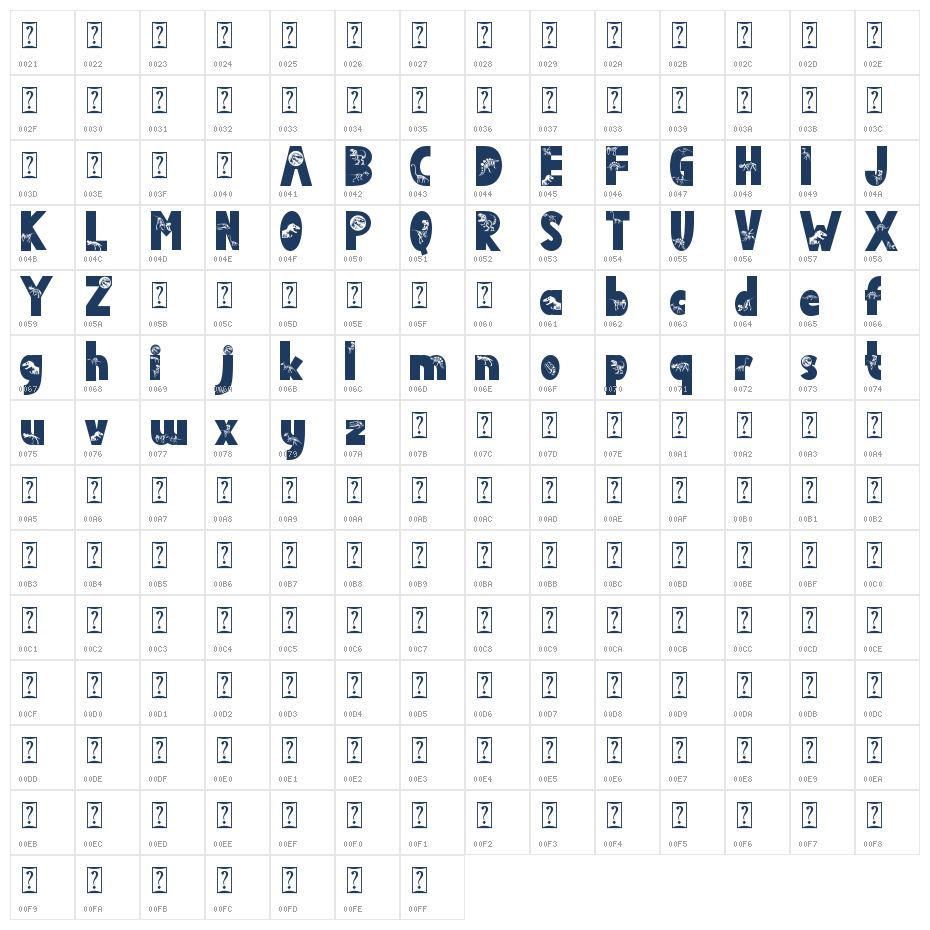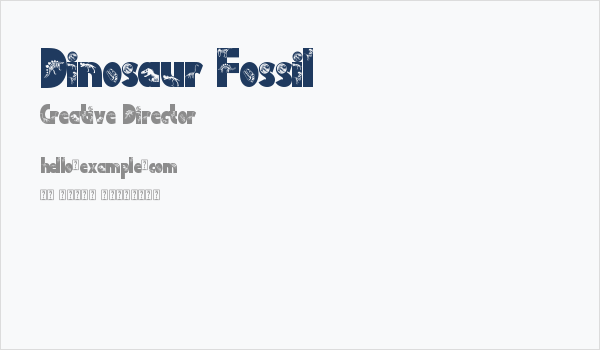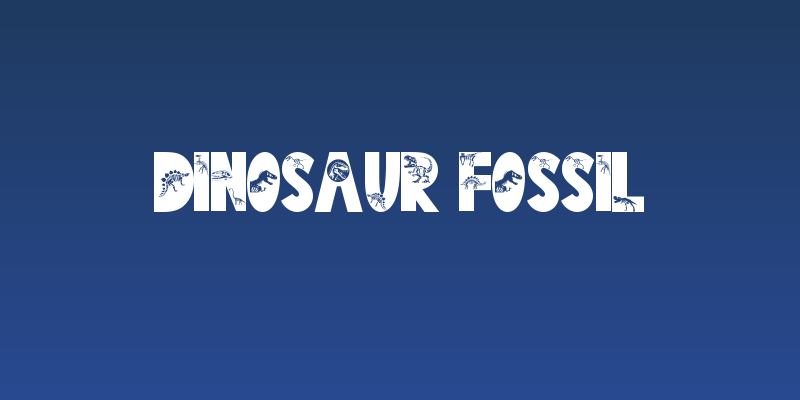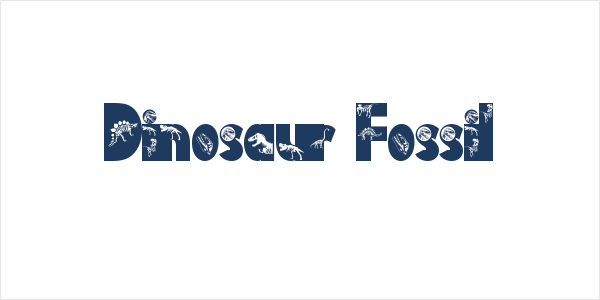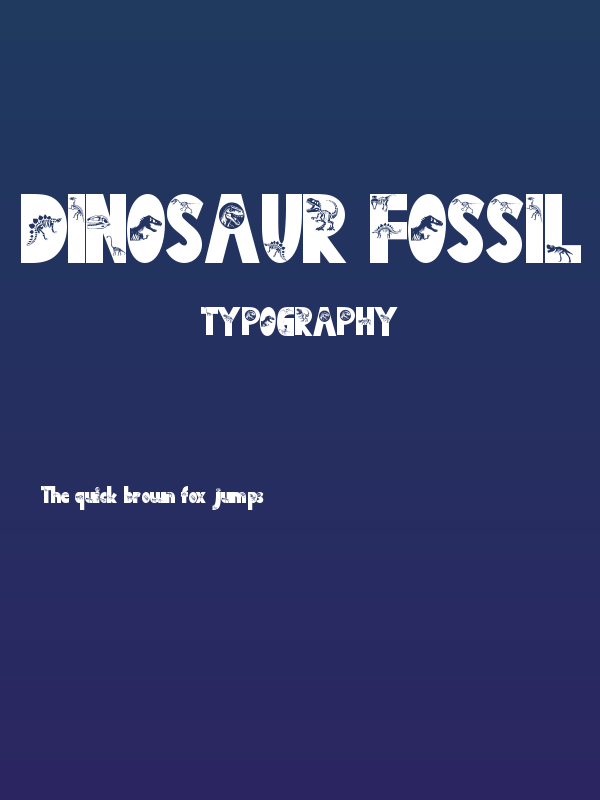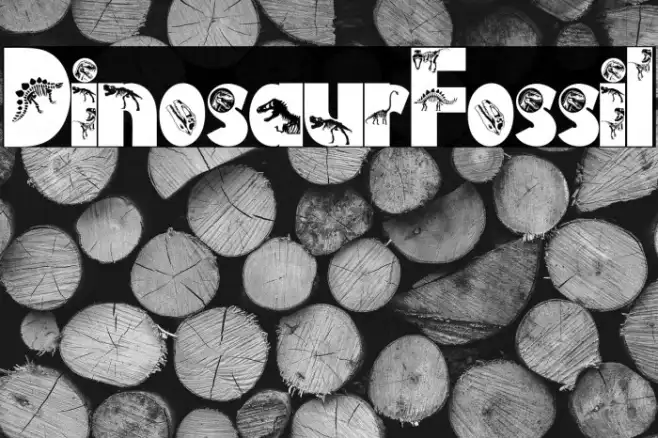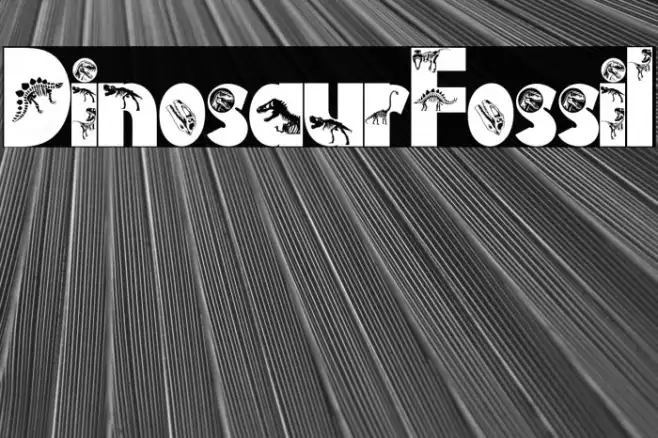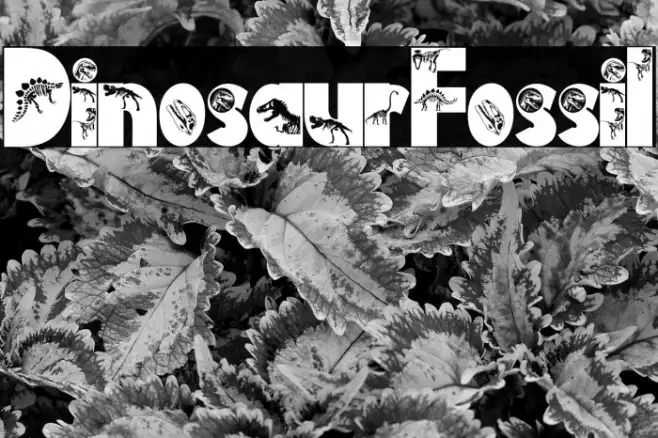
Dinosaur Fossil Font
Dinosaur Fossil Description
Bold, blocky display font with dinosaur illustrations integrated into each character, featuring a playful and decorative style.
| Overall Style | Playful, Decorative, Themed |
| Use Case | Headlines, Logos, Posters, Children's books |